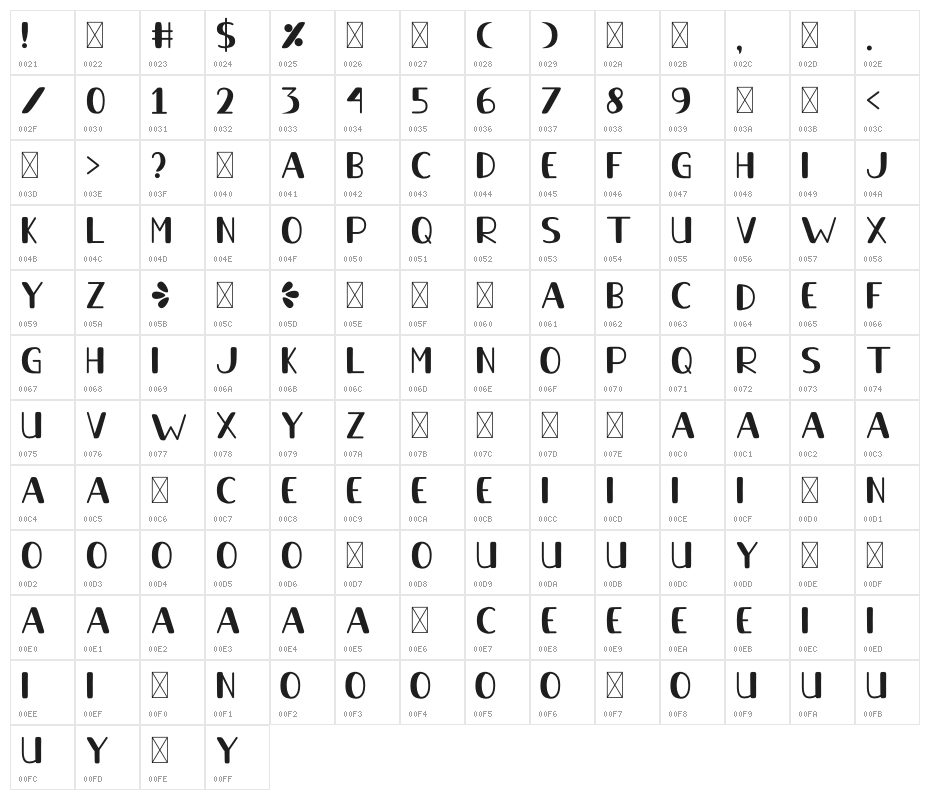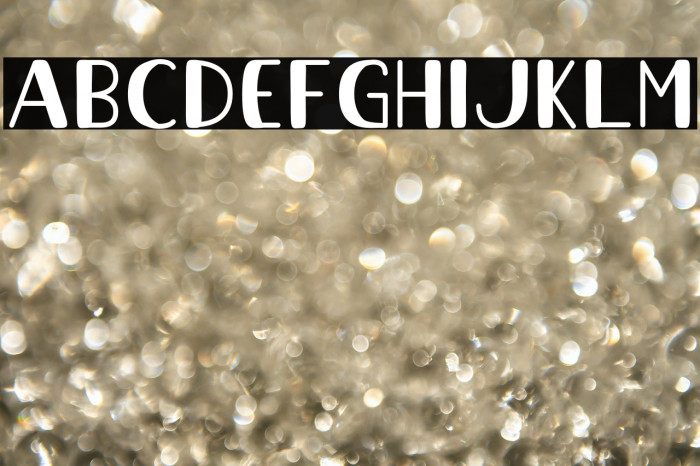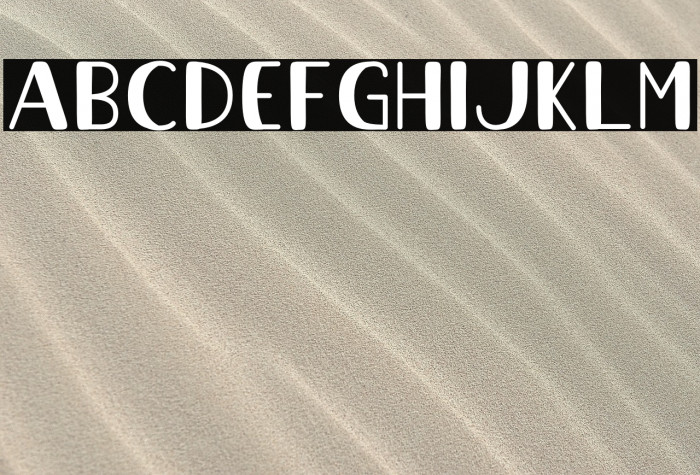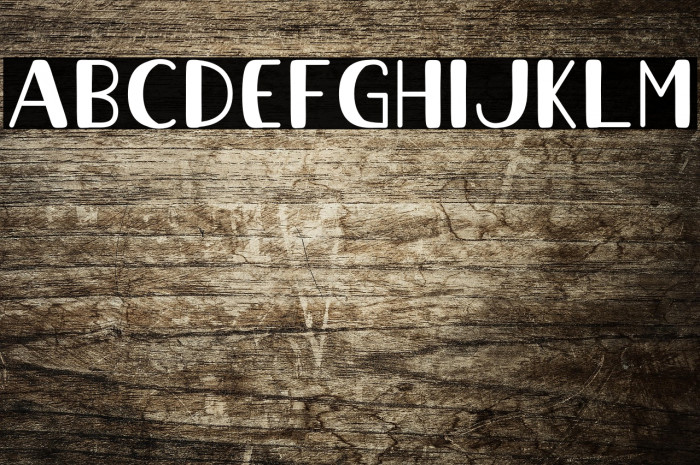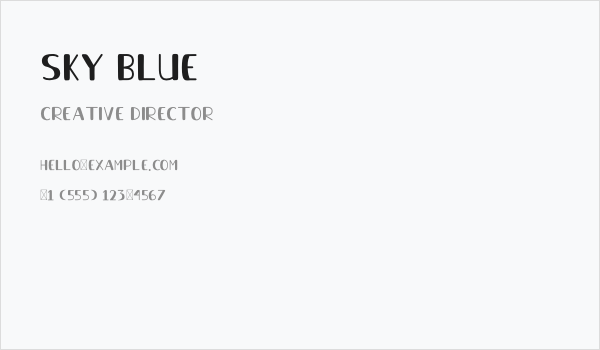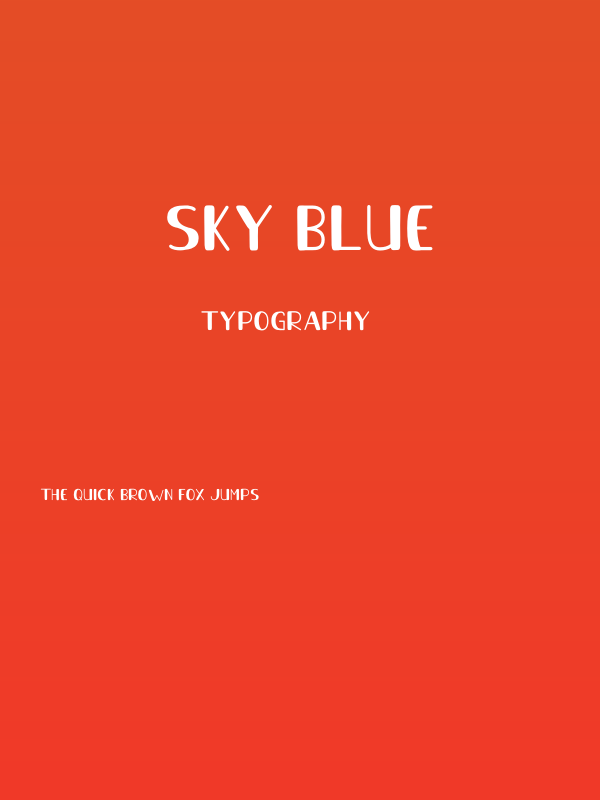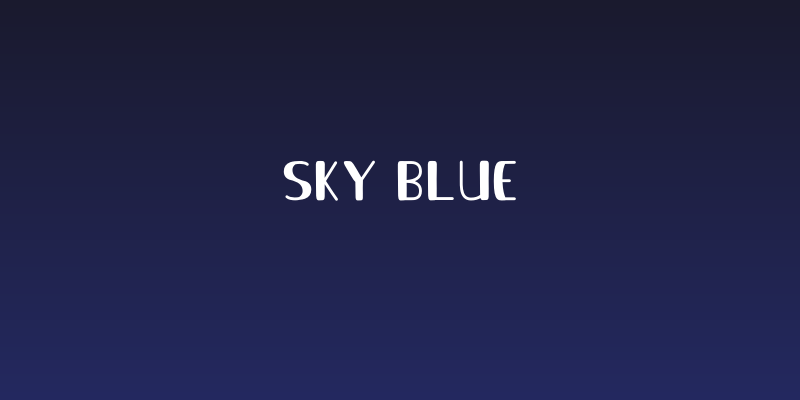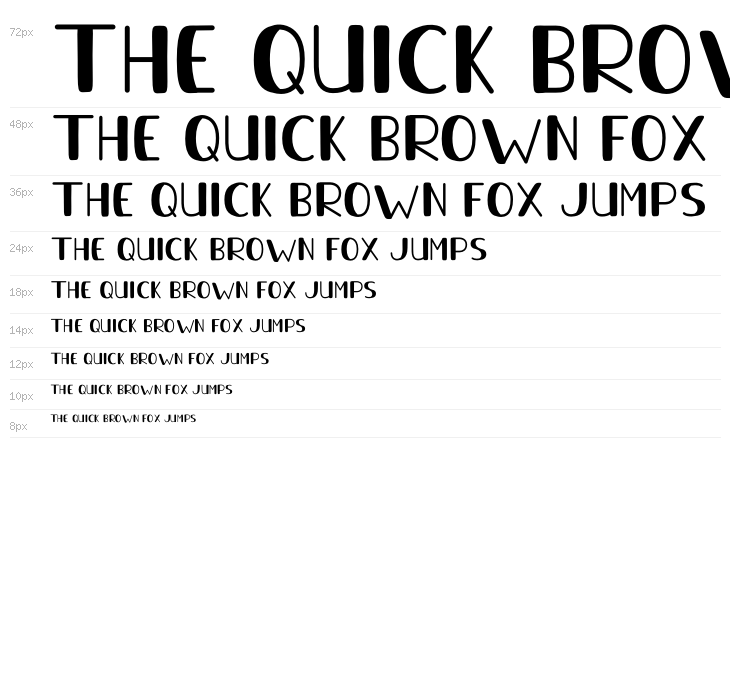
Sky Blue Font
Sky Blue Description
This font features a unique blend of geometric and organic shapes, creating a playful yet sophisticated look. The uppercase letters have a distinct, bold presence with rounded edges and varying stroke widths that add a dynamic feel. The lowercase letters maintain consistency with the uppercase, offering a harmonious flow. Numbers are designed with a similar style, ensuring readability and aesthetic appeal. Special characters are creatively crafted, adding to the font's versatility. This font is ideal for projects that require a modern and artistic touch.
| Proposed Projects | Ideal for branding, posters, and creative design projects that require a modern and artistic flair. |